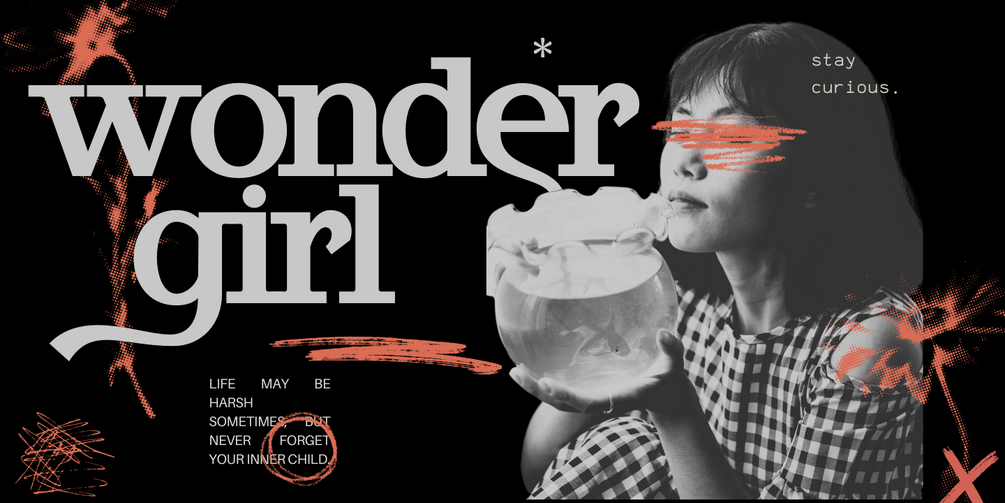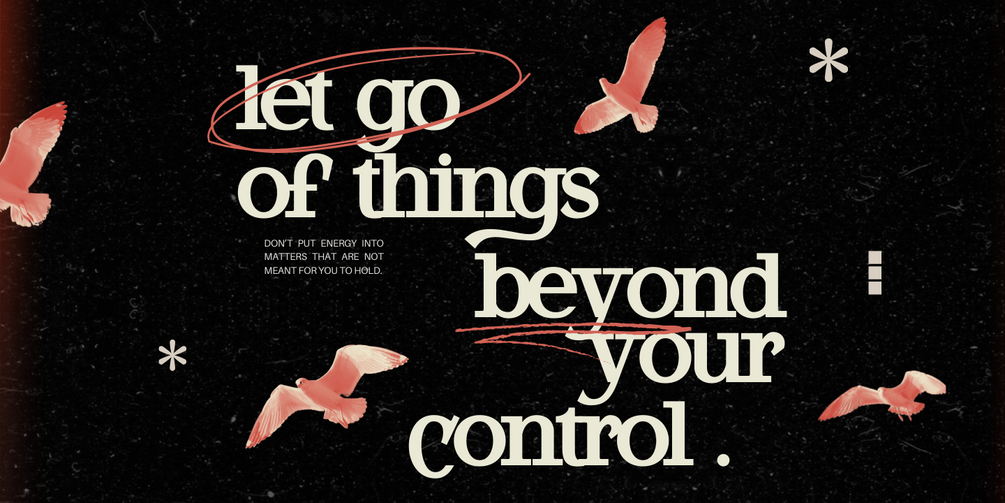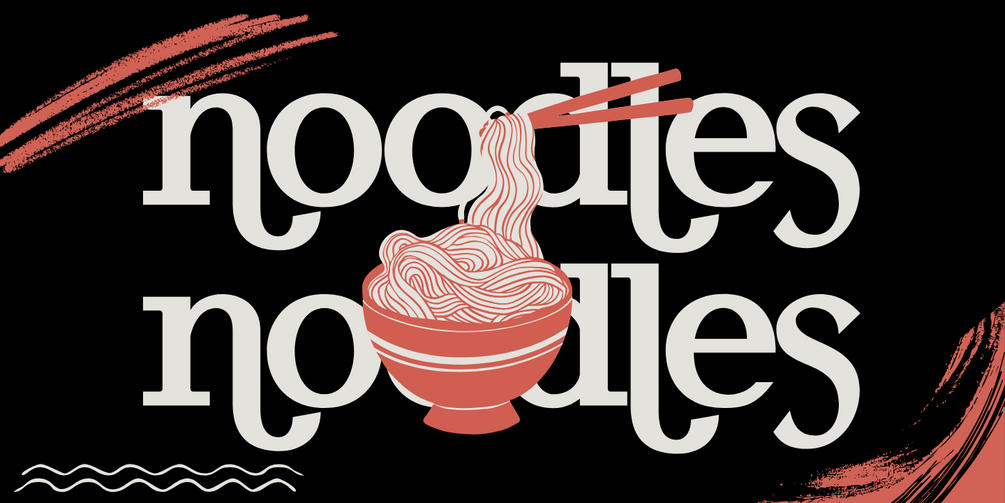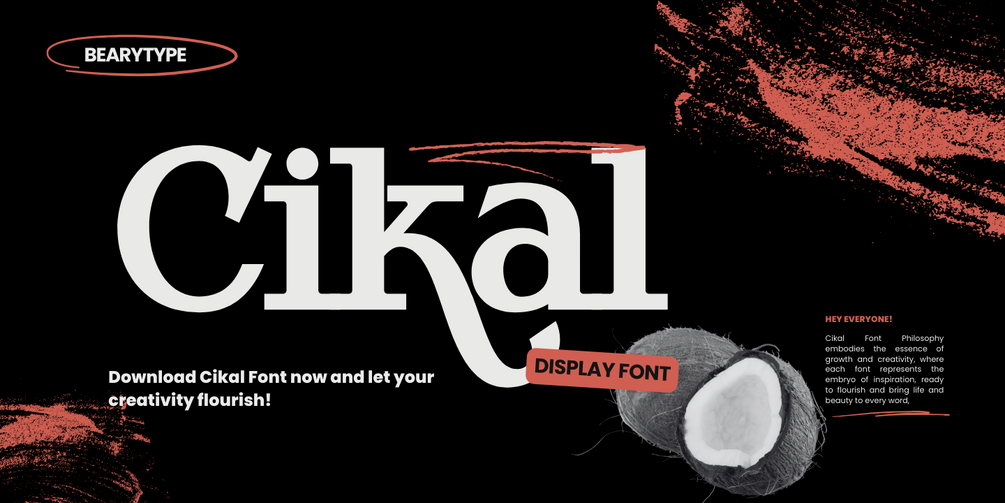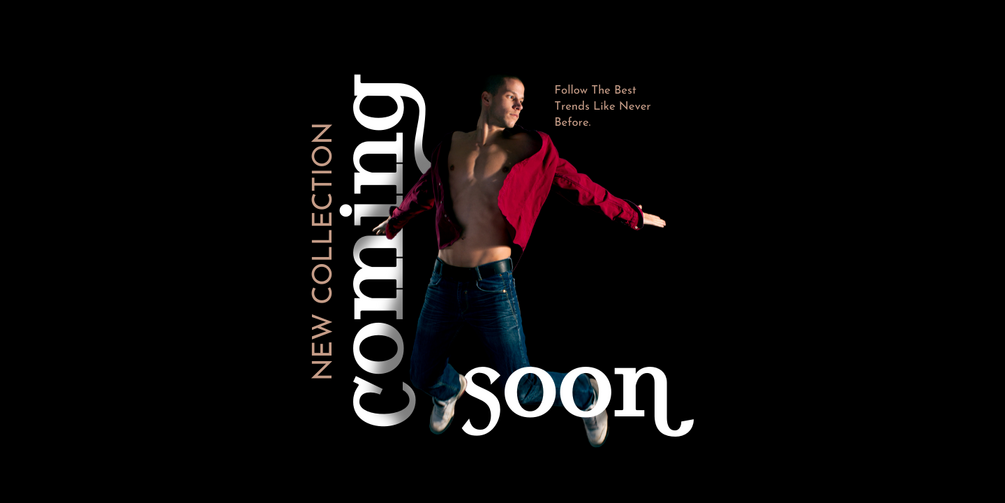
Cikal
Want your designs to feel alive—without losing elegance and depth?
Meet Cikal, a font collection inspired by the very beginning of life and creativity.
In Indonesian, "Cikal" symbolizes the embryo of growth—a seed that holds infinite potential. That same philosophy guides this font: every curve, every detail, carefully crafted to spark creativity and bring your ideas to life.
🌱 Elegant yet organic
🌱 Designed with soul and story
🌱 Perfect for branding, quotes, posters, and projects that need life and meaning
Let Cikal be the start of something beautiful.
✨ Plant your creative seed today—and let it grow with Cikal.